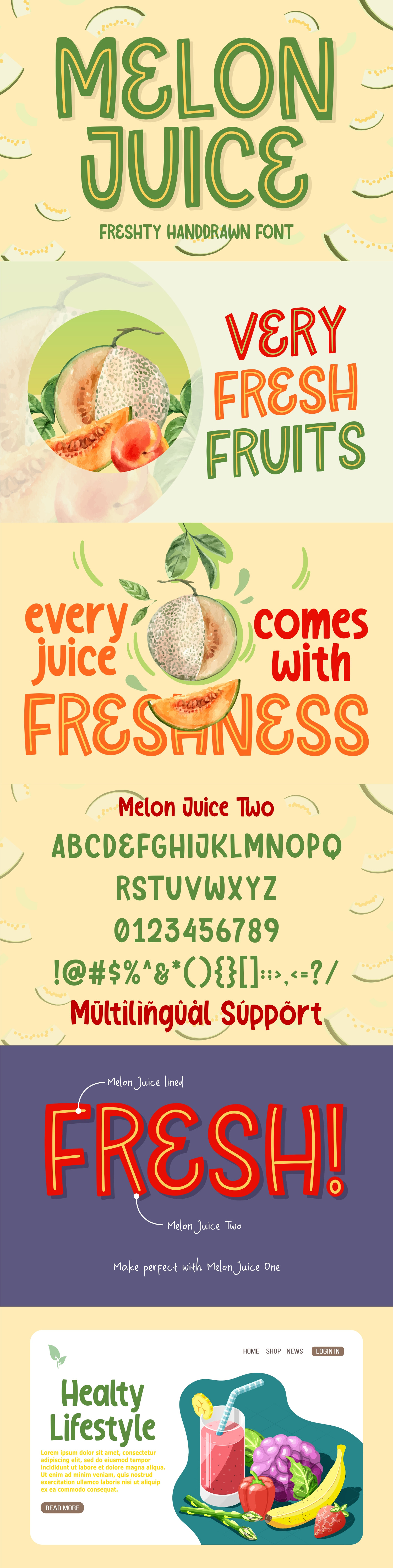
Melon Juice - Freshty Font
Introducing Melon Juice - Freshty Font
Melon Juice is the perfect font for all your fun designs. The main font file is equipped with ordinary characters, as well as more than 350 glyphs to support most Latin-based languages. It is suitable for you to use in making t-shirt design, quote, label, packaging, logo type, or long writing. Because we have compiled kerning and matrices that are tailored to your needs.
Melon Juice features:
- 16 languages support (Look second last preview for support language you need)